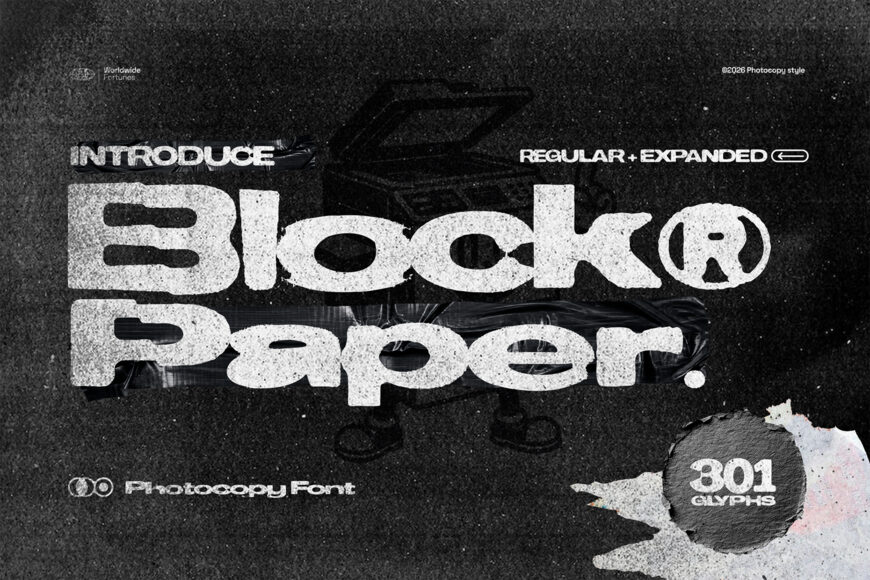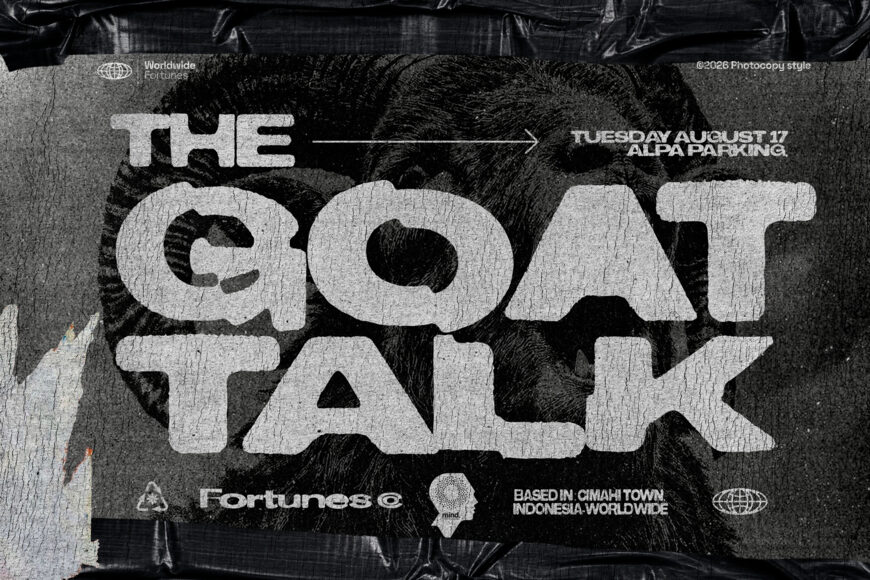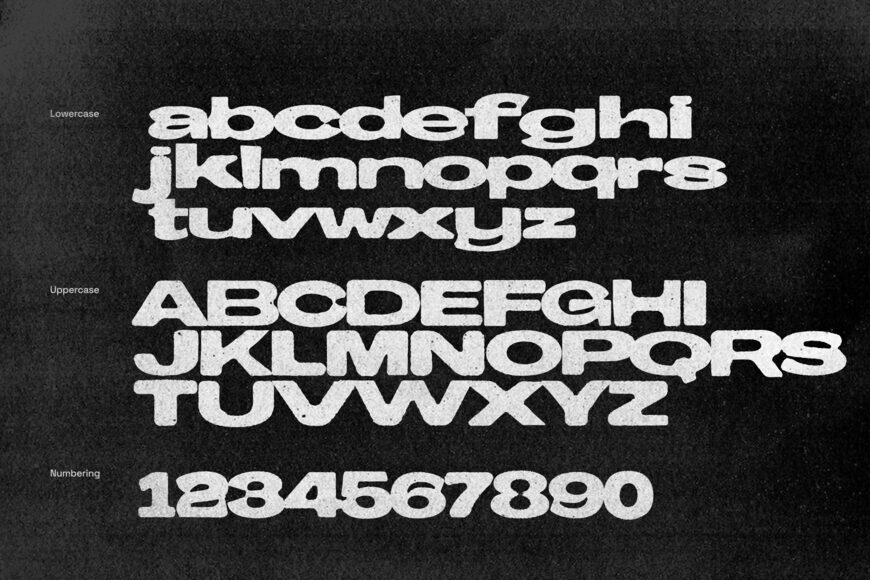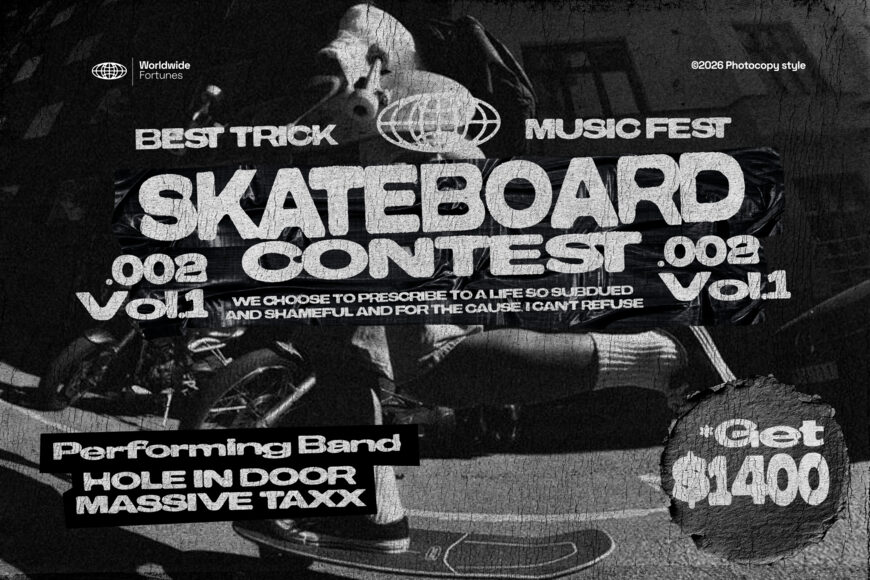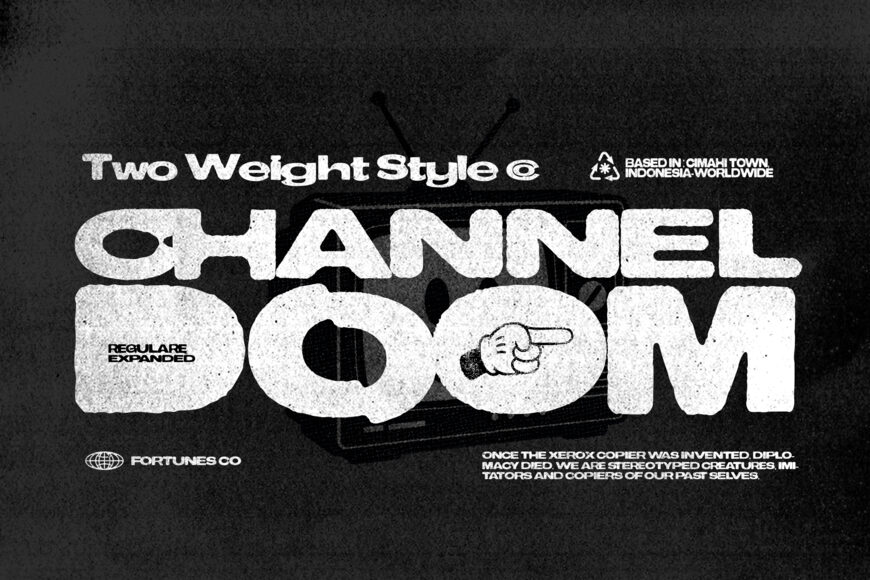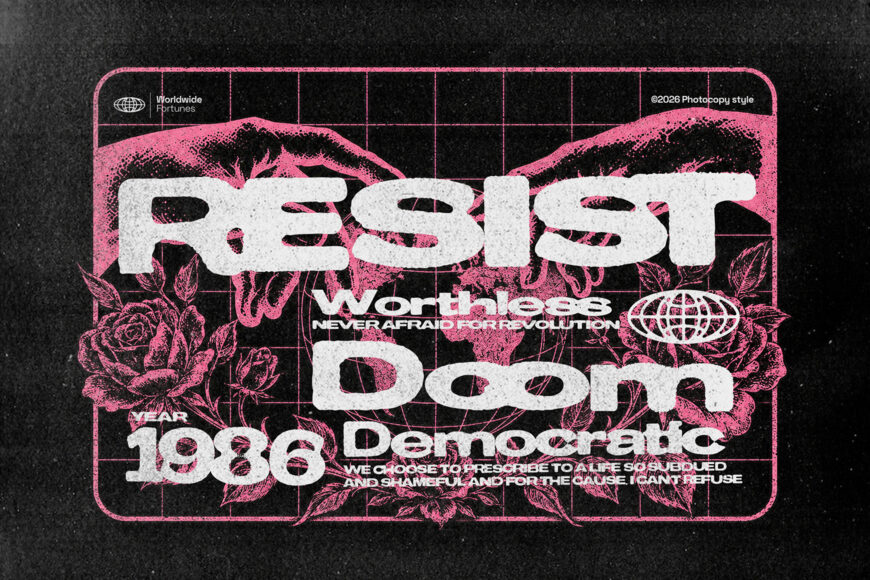
Blockpaper Font
Blockpaper is a bold experimental display typeface inspired by photocopied posters, underground street graphics, and raw DIY typography. Its distorted geometric forms, heavy weight, and rough printed texture create a strong visual impact while maintaining a distinctive and contemporary character.
The family includes Regular and Expanded styles, giving you more flexibility to create both compact headlines and wide, aggressive typographic compositions.